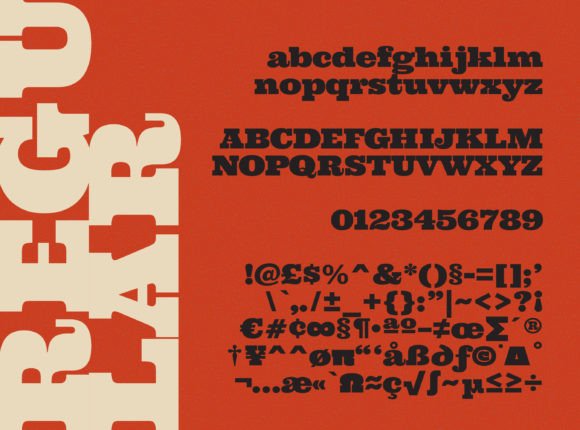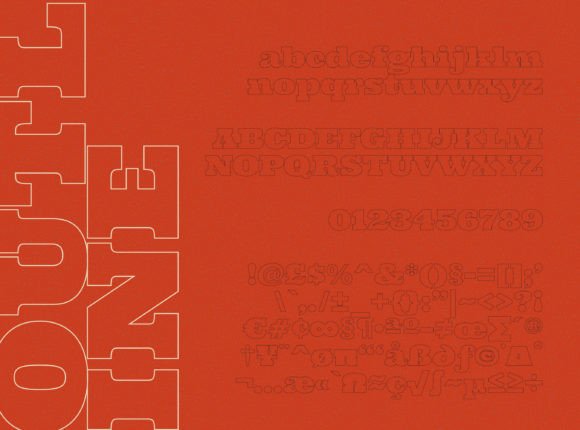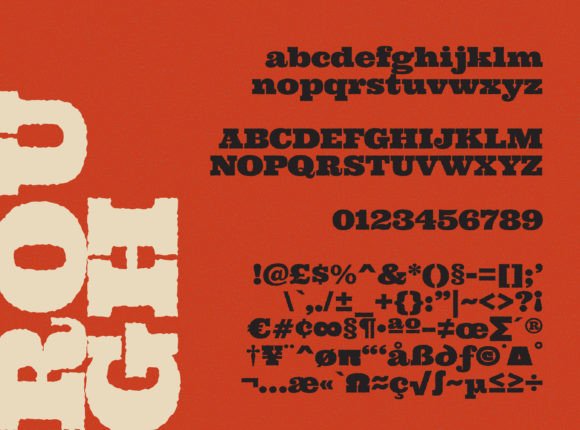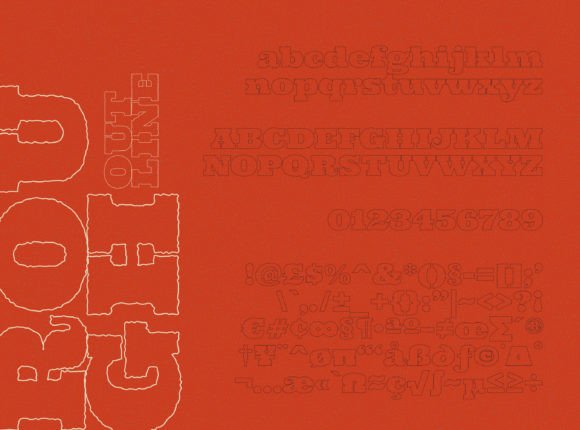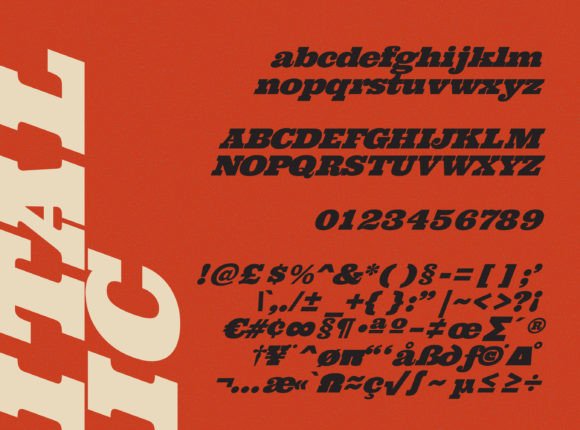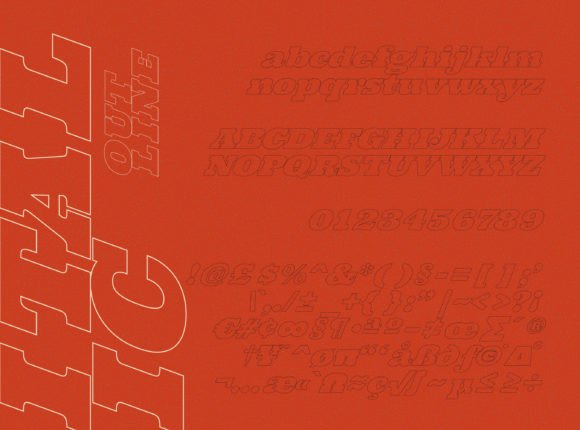
Becrat Font: The Ultimate Choice for Bold and Dramatic Statements
In the world of typography, a font can make or break the visual impact of a design. For designers and crafters looking to add a bold and dramatic statement to their work, Becrat Font is an excellent choice. This super bold slab typeface is designed to make a lasting impression, with its easy legible typestyle and powerful font family.
The Story Behind Becrat Font
Becrat Font is a hand-drawn typeface that has been carefully crafted to perfection. The process began with a skilled artist putting pen to paper, creating unique letterforms that exude confidence and style. The hand-drawn design was then digitized and tweaked to ensure that every detail was precise and polished. The end result is a one-of-a-kind font that stands out from the rest.
Key Features of Becrat Font
- Super Bold Slab Typeface: Becrat Font is characterized by its bold and sturdy design, making it perfect for headlines and titles that demand attention.
- Easy Legible Typestyle: The font’s typestyle is designed to be easy to read, even at large sizes, ensuring that your message is conveyed clearly and effectively.
- Powerful Font Family: Becrat Font comes in a range of weights and styles, allowing you to add depth and variety to your design.
- Hand-Drawn and Digitized: The font’s unique, hand-drawn design has been carefully digitized to ensure that every detail is precise and polished.
Uses of Becrat Font
Becrat Font is a versatile typeface that can be used in a variety of design applications, including:
- Headlines and Titles: The font’s bold and dramatic design makes it perfect for headlines and titles that need to grab attention.
- Logos and Branding: Becrat Font can be used to create unique and memorable logos that reflect a brand’s personality and values.
- Posters and Flyers: The font’s bold design makes it ideal for posters and flyers that need to stand out in a crowded space.
- Digital Media: Becrat Font can be used in digital media, including social media graphics, video titles, and website headers.
Tips for Using Becrat Font
To get the most out of Becrat Font, here are some tips to keep in mind:
- Use it Sparingly: Due to its bold design, Becrat Font is best used sparingly to avoid overwhelming the viewer.
- Pair it with a Simple Font: Pair Becrat Font with a simple font to create contrast and add visual interest to your design.
- Experiment with Colors: Becrat Font looks great in a range of colors, so don’t be afraid to experiment and find the perfect hue for your design.
Becrat Font is a powerful and versatile typeface that is perfect for designers and crafters looking to add a bold and dramatic statement to their work. With its easy legible typestyle, powerful font family, and hand-drawn design, Becrat Font is sure to make a lasting impression. Whether you’re creating headlines, logos, or posters, Becrat Font is an excellent choice.